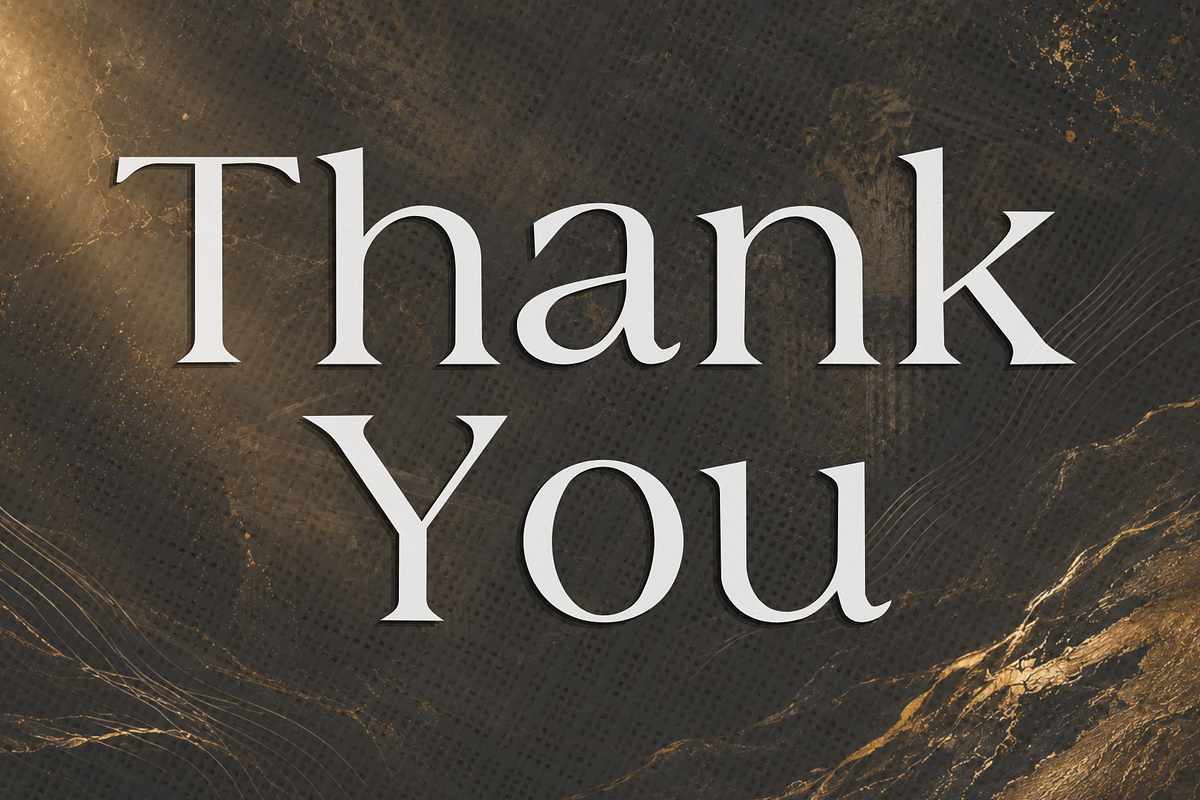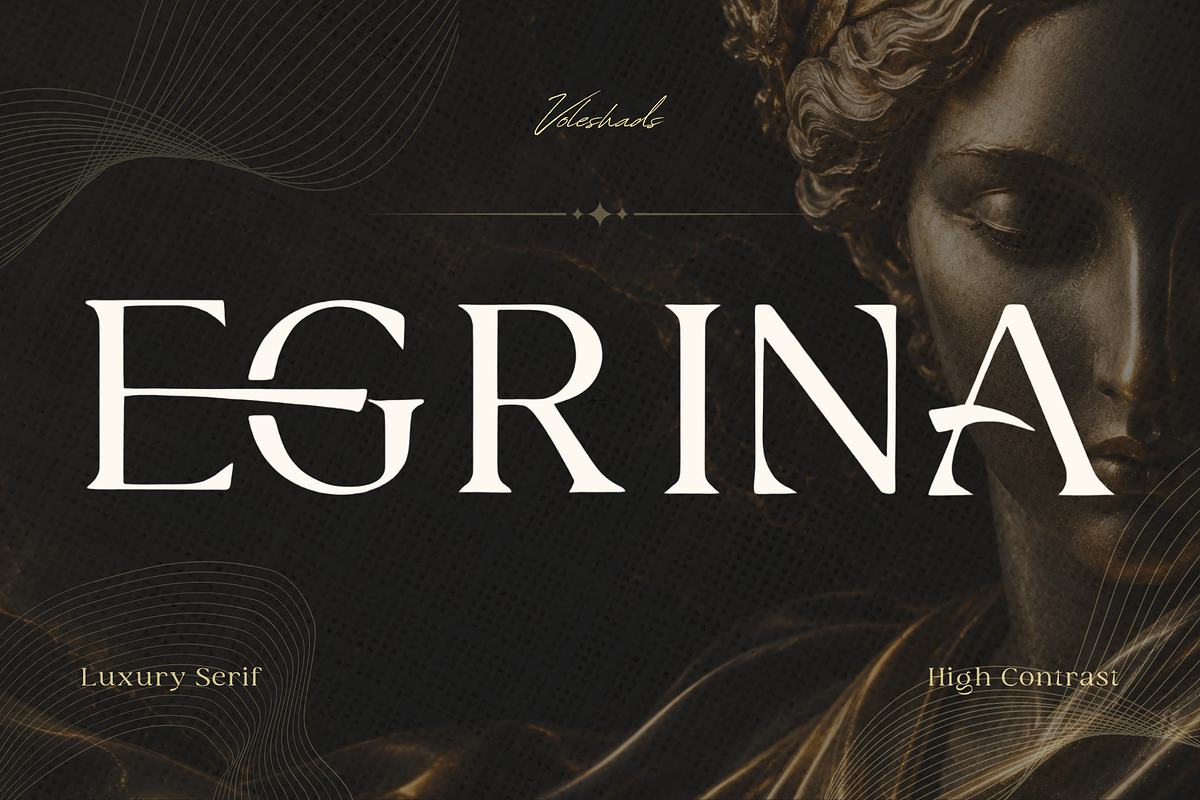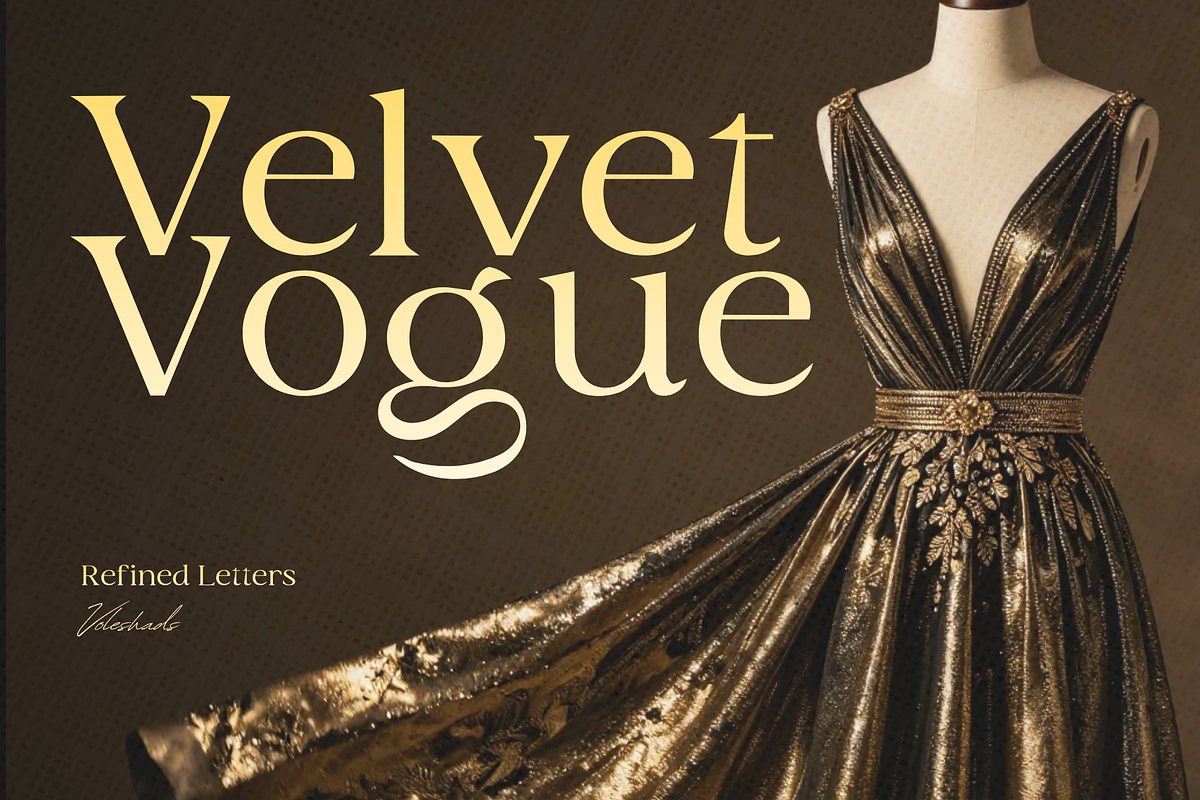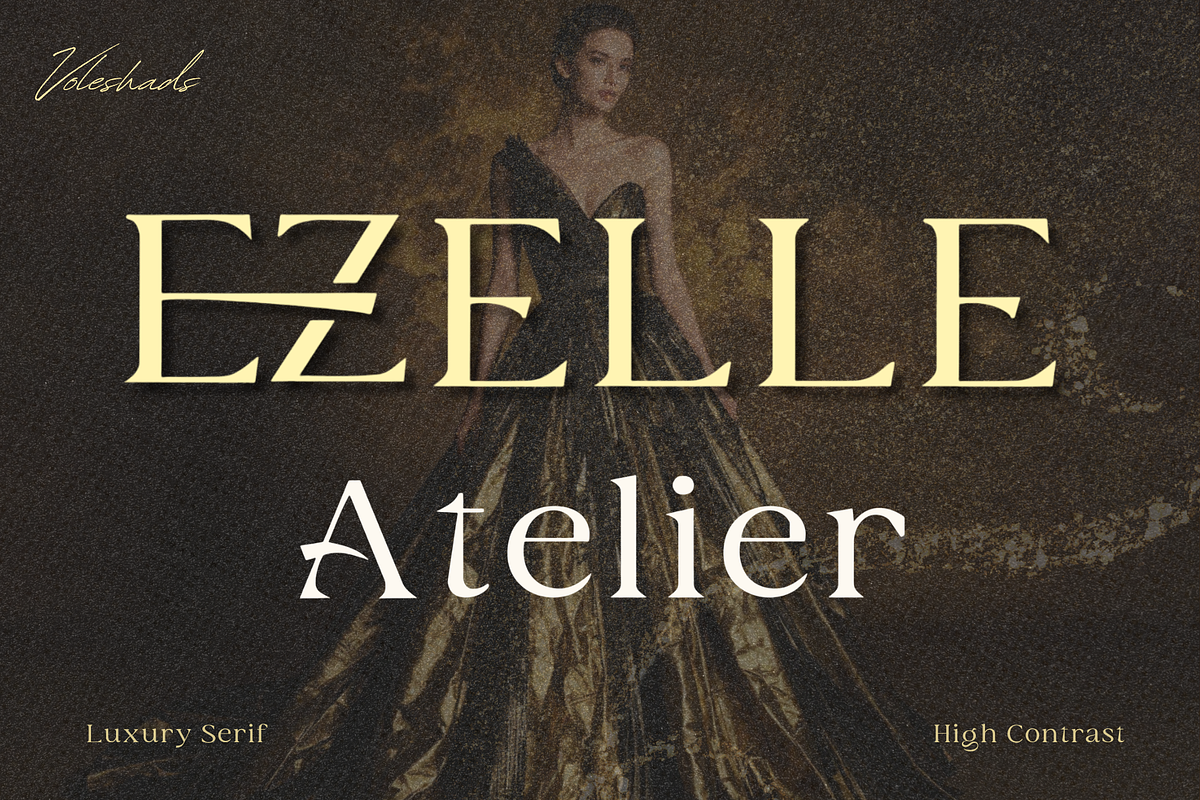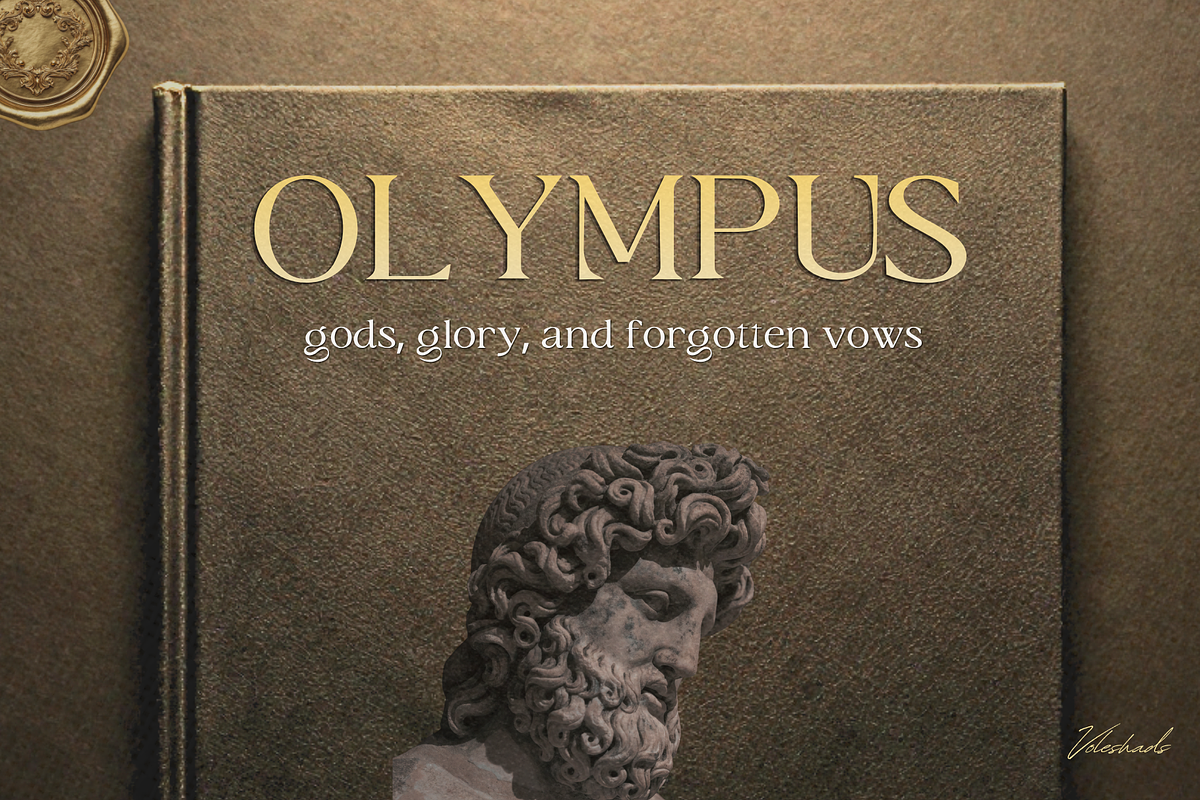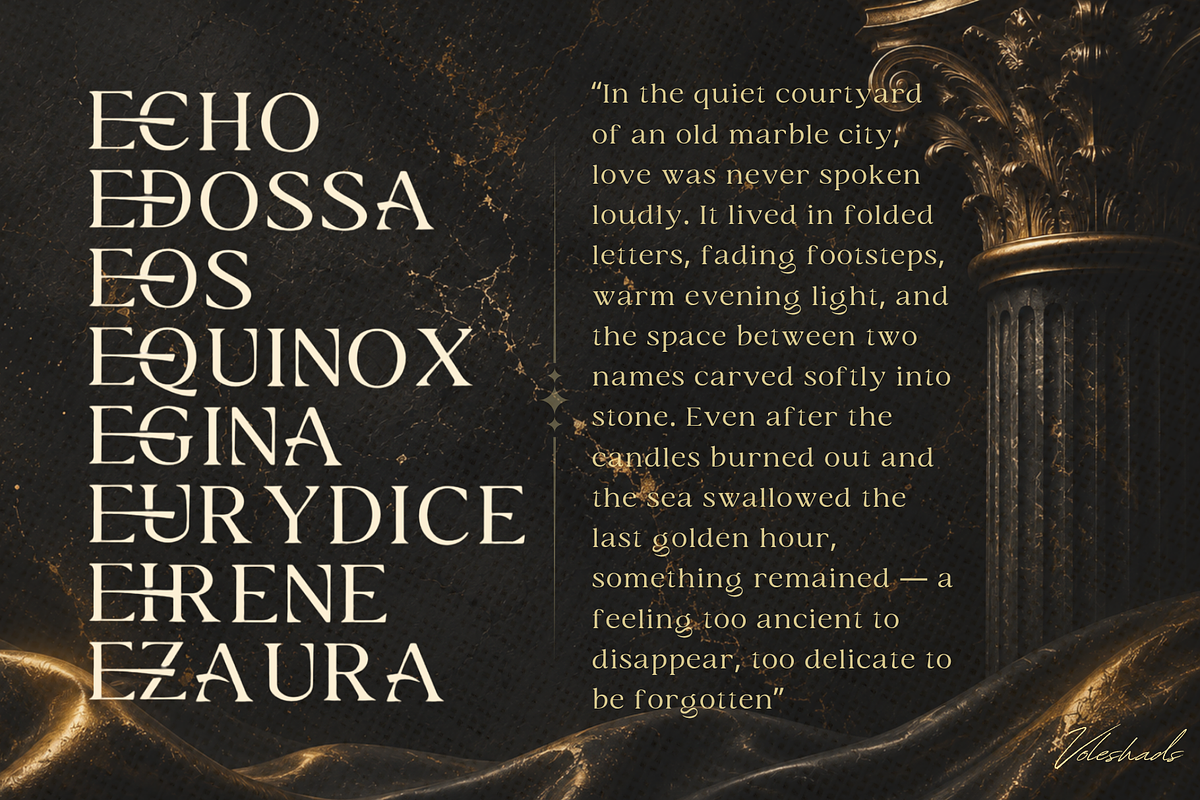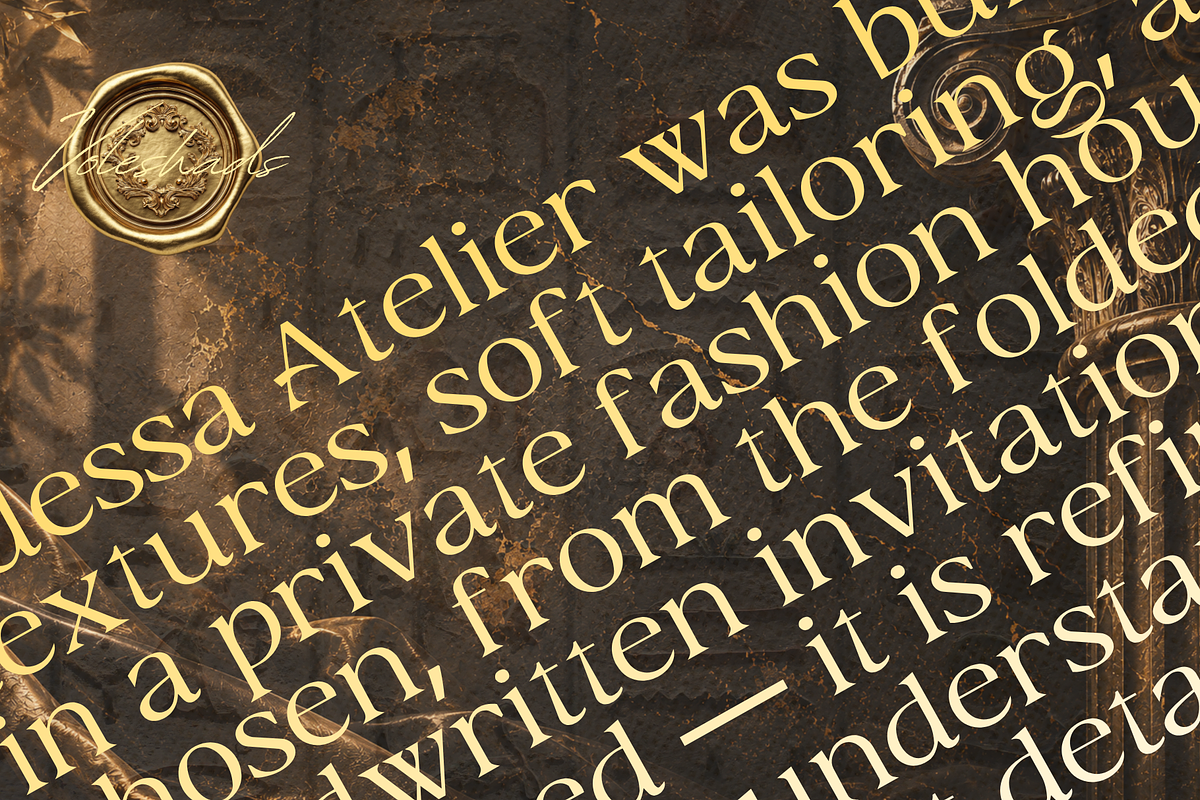
Egrina Luxury Serif Font
Thank you for taking a look at Egrina, my Luxury Serif Font. I designed it as a refined, high-contrast serif that’s perfect for elegant brands, editorial layouts, fashion visuals, book covers, packaging, invitations, and any premium design project you have in mind.
With its graceful curves, sharp serif details, and timeless classical mood, Egrina brings a sense of luxury to every word. It works beautifully for logos, beauty branding, couture-inspired graphics, magazine titles, social posts, quote cards, and sophisticated visual identities.
Egrina includes special OpenType contextual alternates for selected E-letter combinations, creating stylish connected letter moments in supported software. These details help your typography feel more custom, polished, and memorable.
Best used for display typography, brand names, headlines, titles, packaging, and elegant short text. For best results, use in software that supports OpenType features.
Create timeless, luxurious, and unforgettable designs with Egrina.